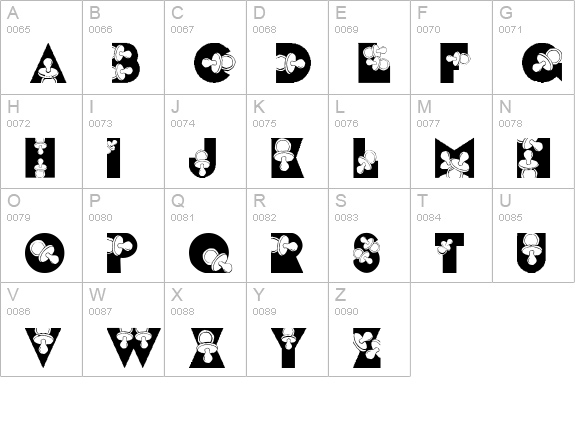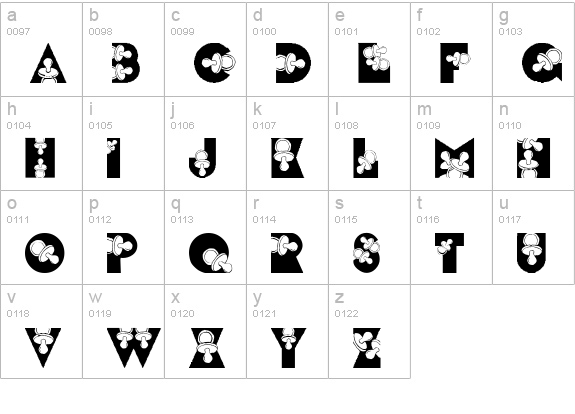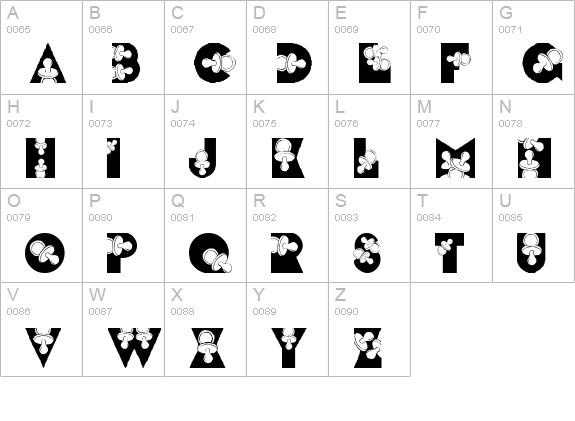
LMS Binky Baby font is a charming and whimsical typeface that exudes a playful and childlike essence. Its rounded edges and adorable design make it perfect for projects aimed at capturing the innocence and joy of childhood. The soft and gentle curves of this font give off a warm and inviting feeling, making it ideal for various creative projects. Best of all, LMS Binky Baby font is available for free download at FontsMarket.com. This means that you can easily add this delightful font to your collection without any cost. Whether you're working on a children's book, a baby shower invitation, or a playful branding project, LMS Binky Baby font will bring a touch of sweetness and fun to your designs. Download it today and let your creativity run wild with this lovable and freely available font.